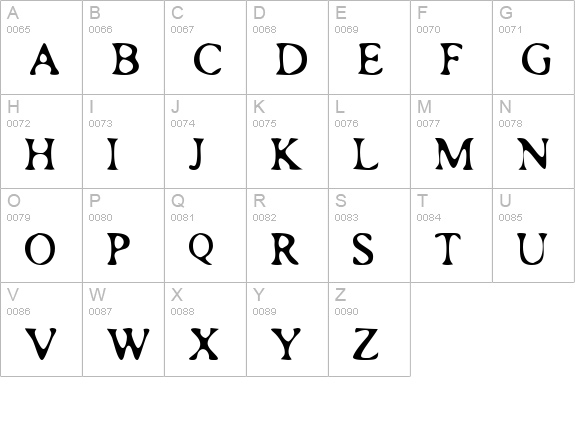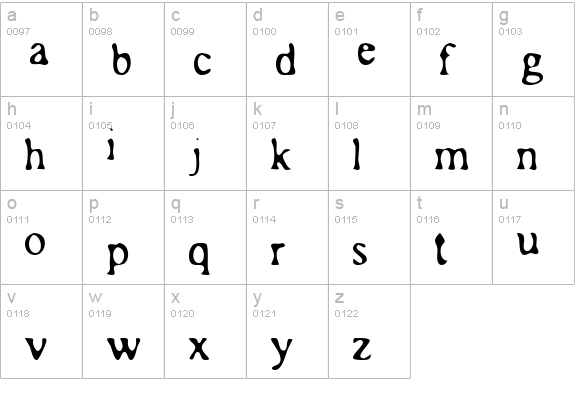
Roman Acid Font Details
Introducing Roman Acid font, a bold and captivating typeface that exudes a sense of ancient grandeur with a modern twist. This unique font features sharp edges and intricate details that add a touch of sophistication to any design project. The Roman Acid font is perfect for creating eye-catching logos, branding materials, and headlines that demand attention. What's even better is that Roman Acid font is completely free to download at FontsMarket.com. Whether you're a designer looking to add a fresh element to your work or a creative enthusiast seeking a new font to play with, Roman Acid font is the perfect choice. Download it today and let your creativity soar with this stunning and versatile typeface.